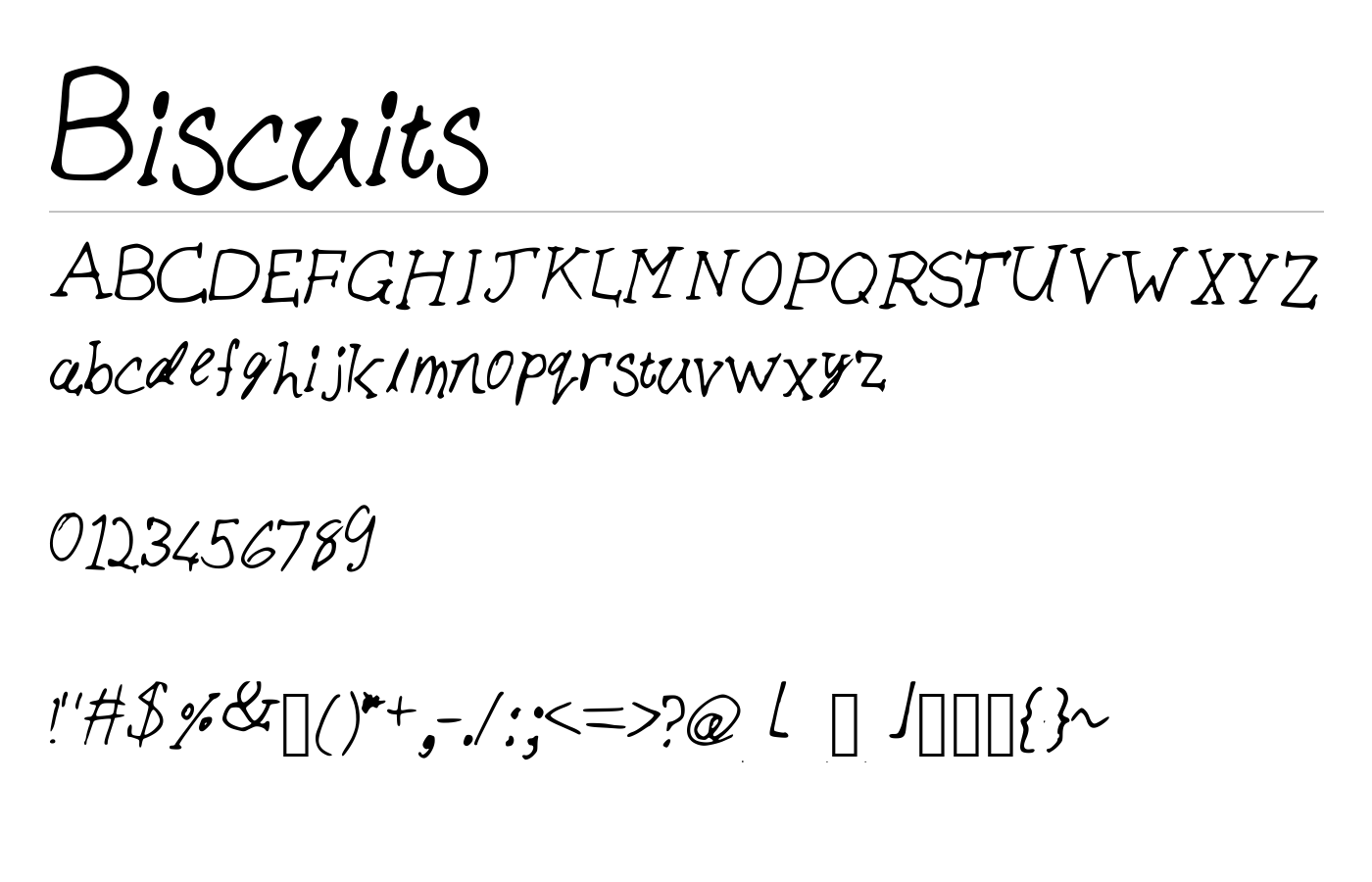
Biscuits is a charming, whimsical serif font with a hand-drawn, slightly uneven style that gives it a playful and personal feel. Its delicate thin strokes and casual letterforms make it ideal for creative projects, children’s books, or branding that aims to convey warmth and approachability. This font works best in headlines, logos, or decorative text where a unique, friendly touch is desired.
Biscuits Font
About Biscuits Font